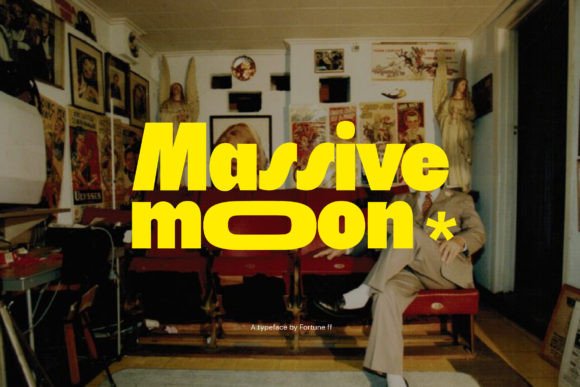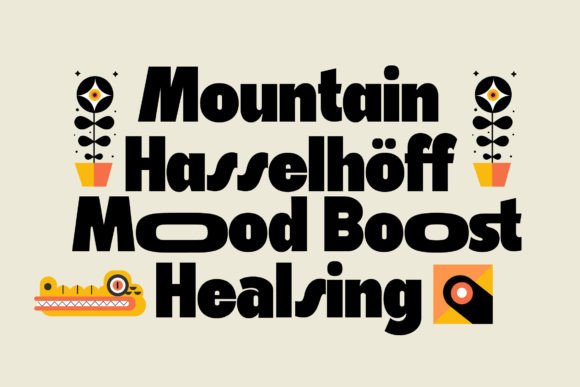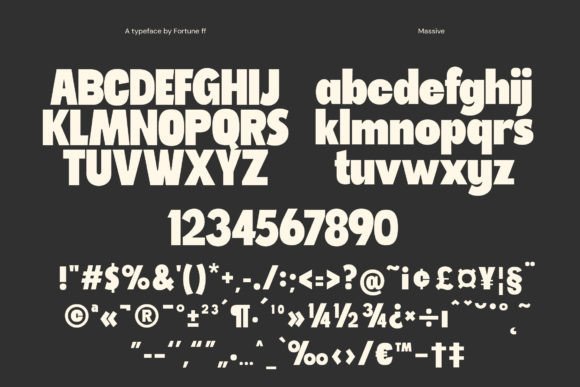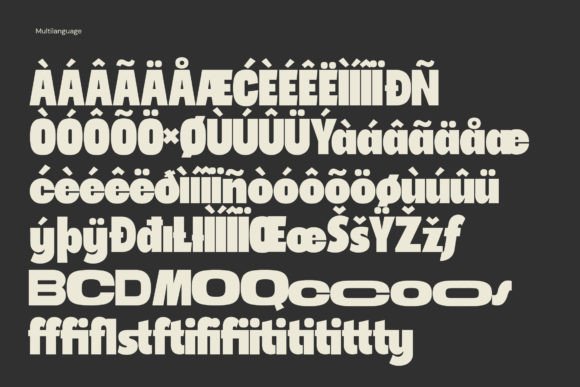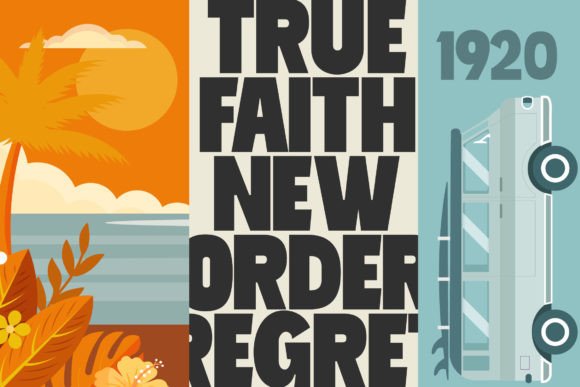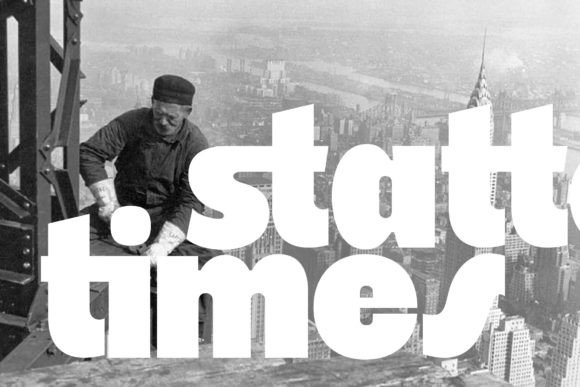
Massive Moon Font
**Massive moon is headline font with a retro feel that transports readers to a bygone era, invoking nostalgia and charm. Its bold strokes and quirky serifs harken back to the golden age of design, reminiscent of vintage posters and classic advertisements**
The typeface exudes a timeless appeal, seamlessly merging the flair of yesteryear with modern readability. Each character carries a sense of character, mirroring the craftsmanship of mid-century typography. The warm color palette and slightly distressed texture further amplify the retro vibe, adding a touch of authenticity. This font doesn’t just convey information; it tells a story, bridging the gap between the past and present.